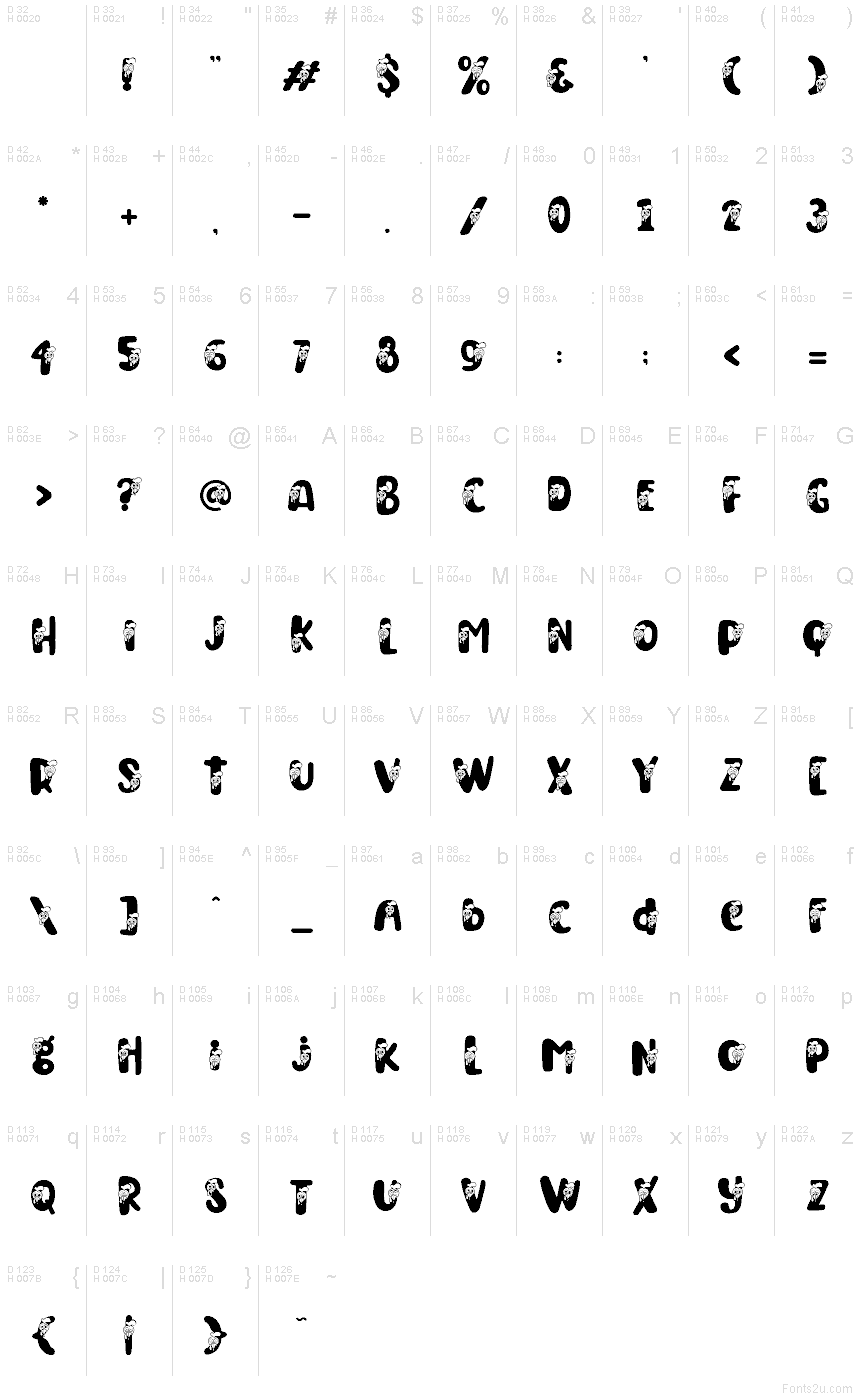
Thanksgiving Joy Turkey Head
Thanksgiving Joy Turkey Head font by PutraCetol Studio is a decorative display font that creatively weaves cute turkey head outlines into the top section of each letter. While these turkeys stay uniform, their integration with each character is customized for different letters making the font absolutely novelty-themed.
A free whimsical decorative uppercase, the typeface can be used in party invitations, flyers, greeting cards Thanksgiving social media posts or posters, and more. Its visual appearance also makes it useful in menus designs and other seasonal design elements.